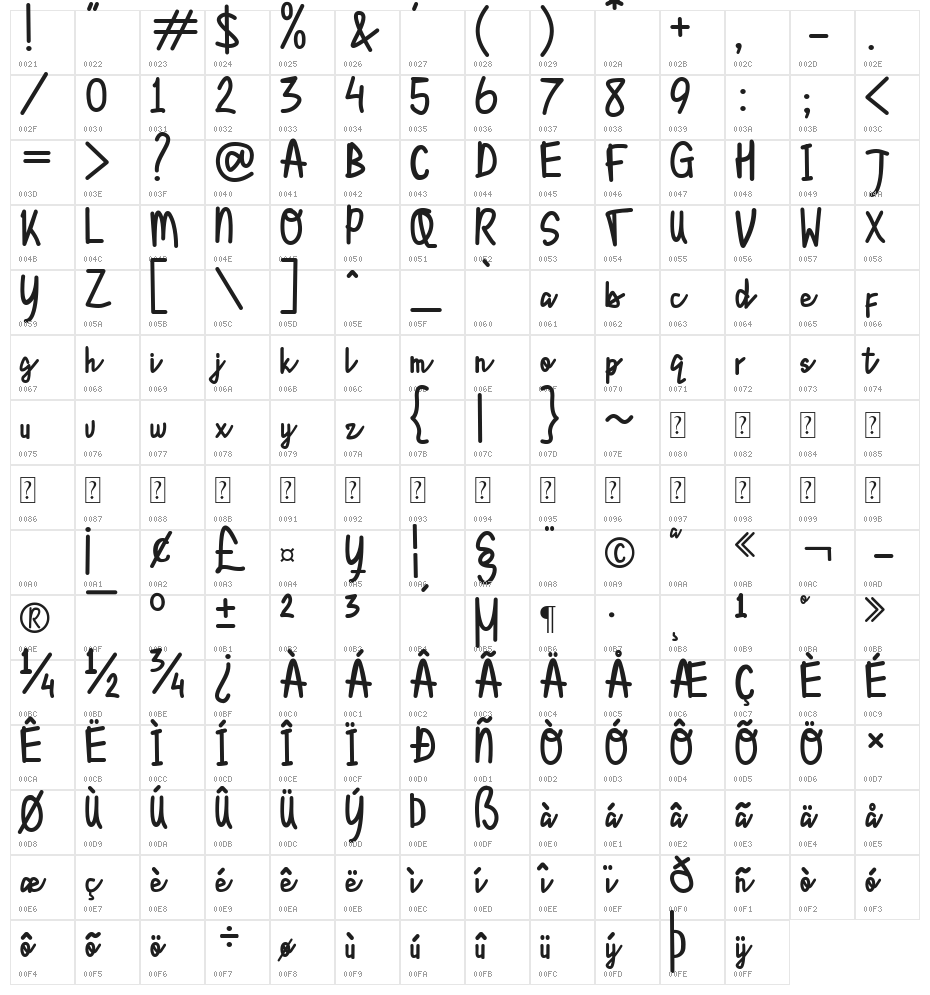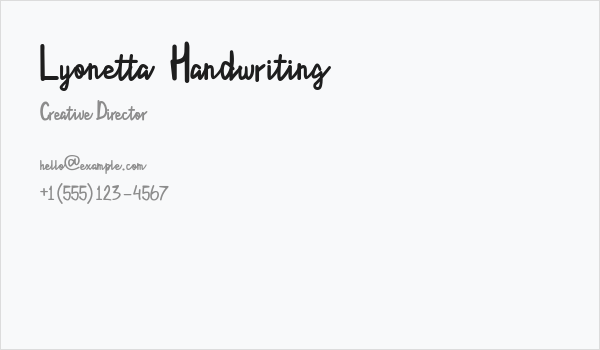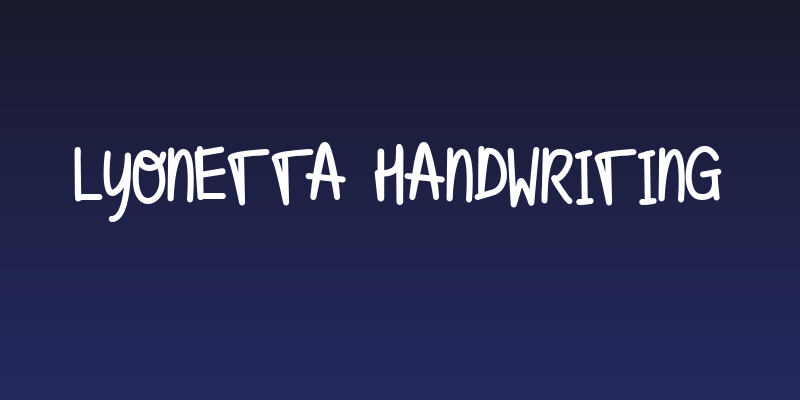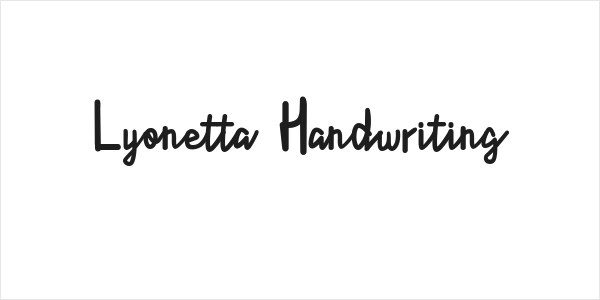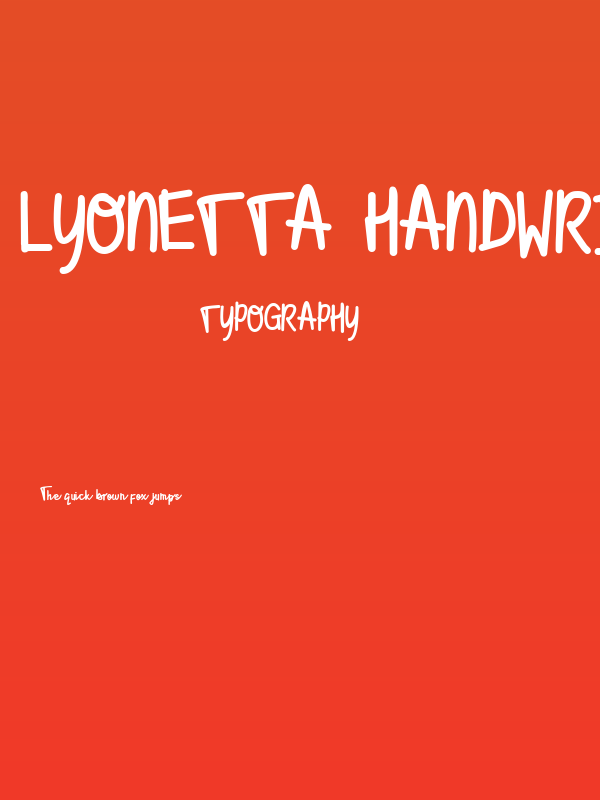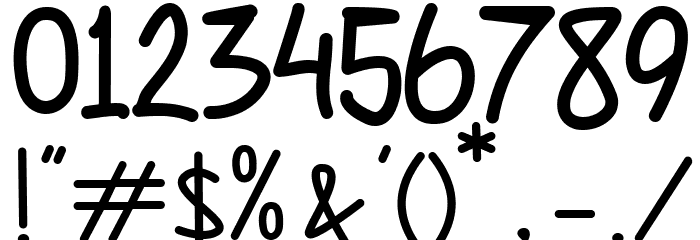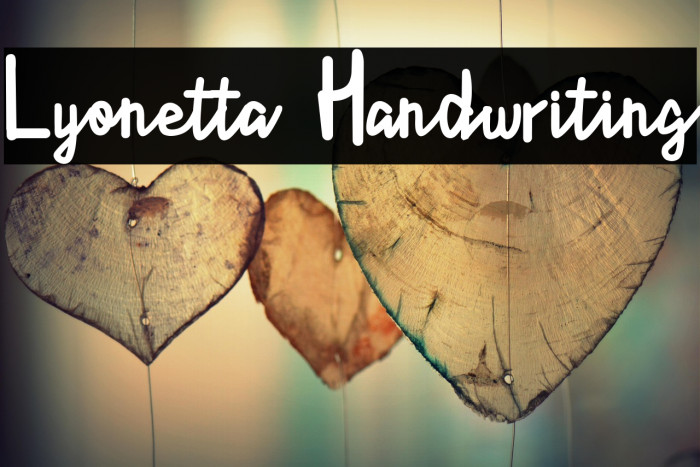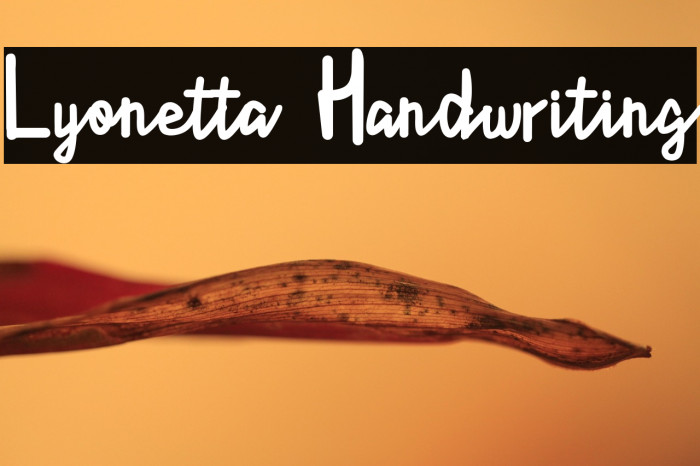
Lyonetta Handwriting Font
Lyonetta Handwriting Description
This font exudes a playful and casual handwritten style, characterized by its bold and rounded letterforms. The uppercase letters are tall and slightly narrow, with a consistent stroke width that gives a uniform appearance. The lowercase letters maintain a similar style, with a smooth flow that mimics natural handwriting. Numbers are clear and legible, matching the overall aesthetic. Special characters are creatively integrated, maintaining the playful essence of the font. The overall look is approachable and friendly, making it ideal for projects that require a personal touch.
| Overall Style | Casual, Playful |
| Use Case | Logos, Headlines, Informal Invitations |
| Proposed Projects | Ideal for greeting cards, children's books, casual branding, and social media graphics. |